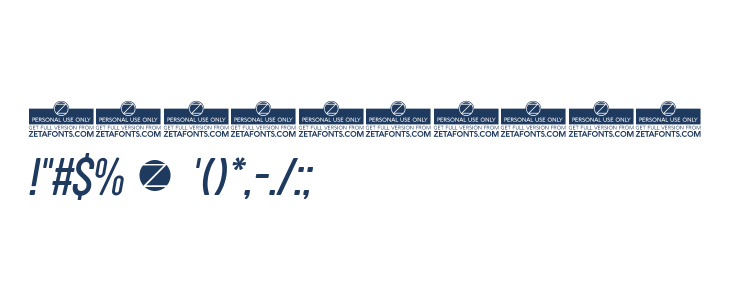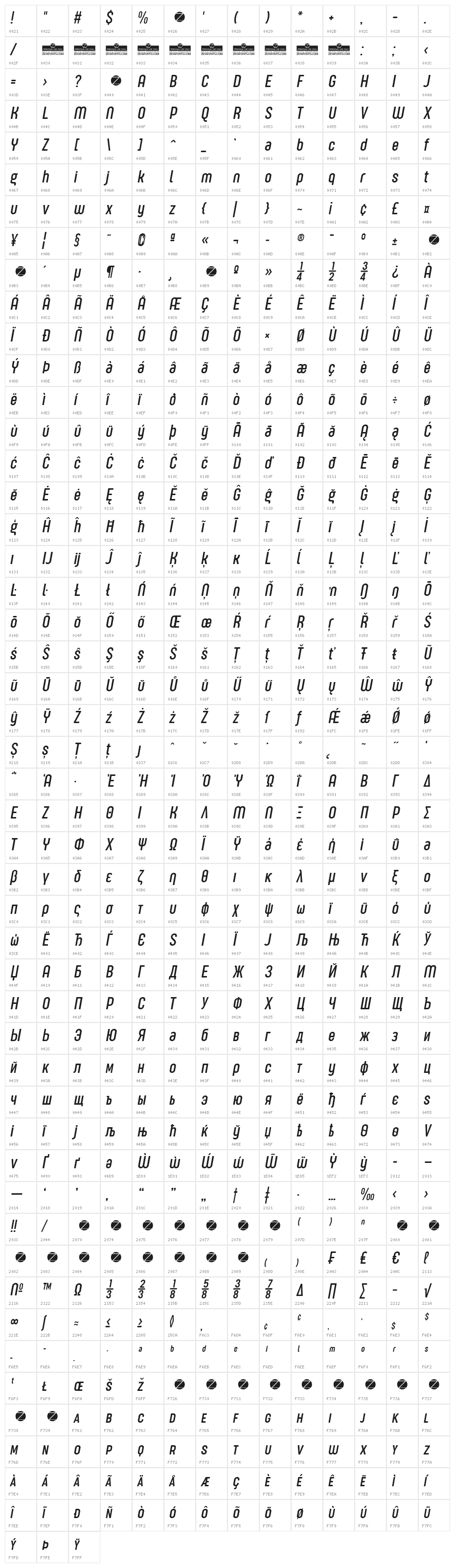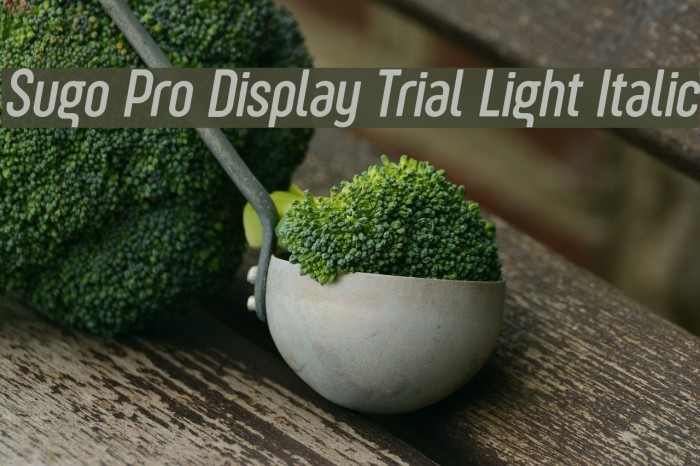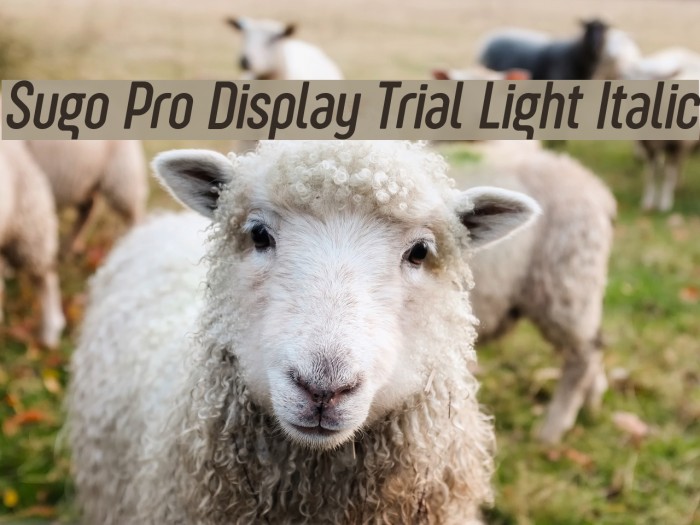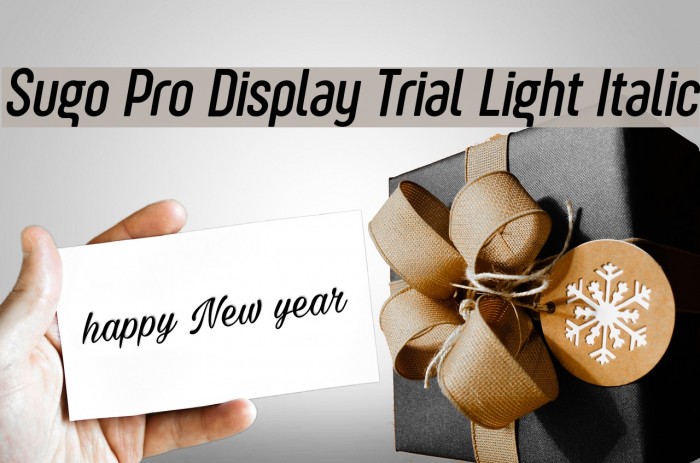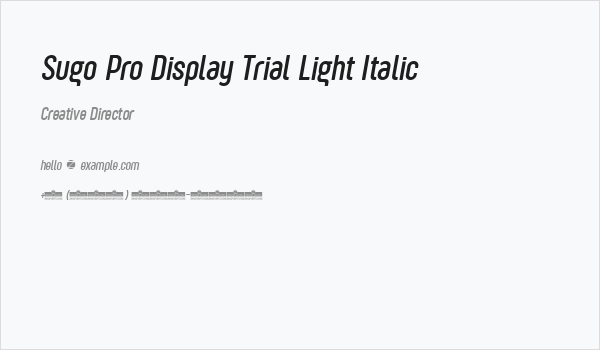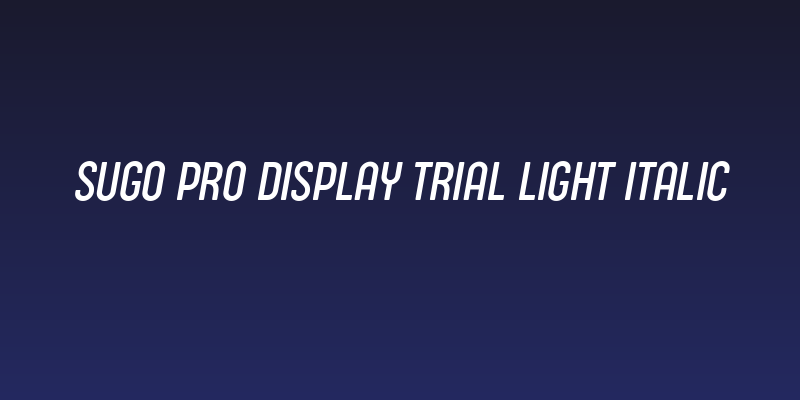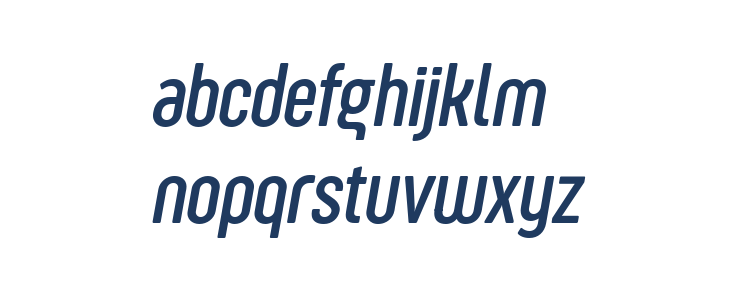
Sugo Pro Display Trial Light Italic Font
Sugo Pro Display Trial Light Italic Description
This font features a sleek and modern design with a distinct italic slant, giving it a dynamic and forward-moving appearance. The characters are elongated with a consistent stroke width, contributing to a clean and streamlined look. The uppercase and lowercase letters maintain a uniform style, enhancing readability while adding a touch of elegance. The numerals and special characters are designed to match the overall aesthetic, ensuring a cohesive appearance across different uses. This font's light weight and italic style make it suitable for projects that require a contemporary and stylish touch.
| Proposed Projects | Ideal for branding, advertising, and editorial design where a modern and stylish look is desired. |